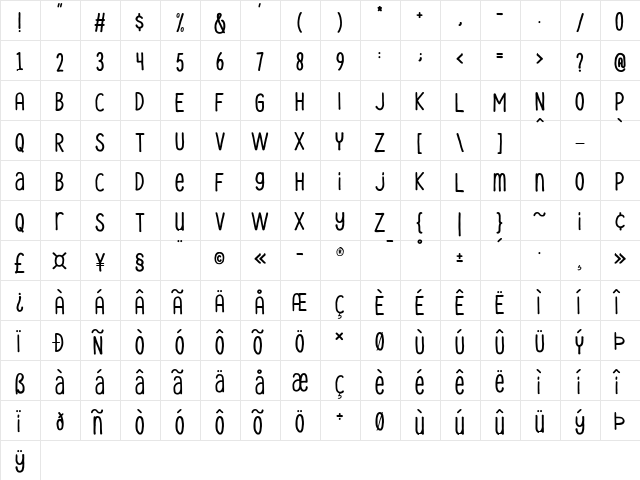
Dreamy Land Medium Land-Medium Font Preview
Dreamy Land Medium Land-Medium
Design Context for Dreamy Land Medium Typeface
Dreamy Land Medium takes a measured approach to typography — its balanced proportions and neutral character make it a reliable workhorse for both digital and print work.